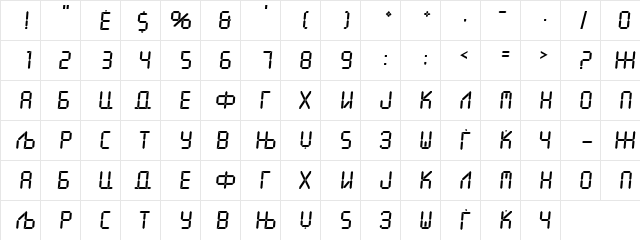
X_Liquid Crystal Normal
Design Context for X_Liquid Crystal Typeface
X_Liquid Crystal is a composed and adaptable typeface that performs quietly and consistently across a wide range of design contexts.